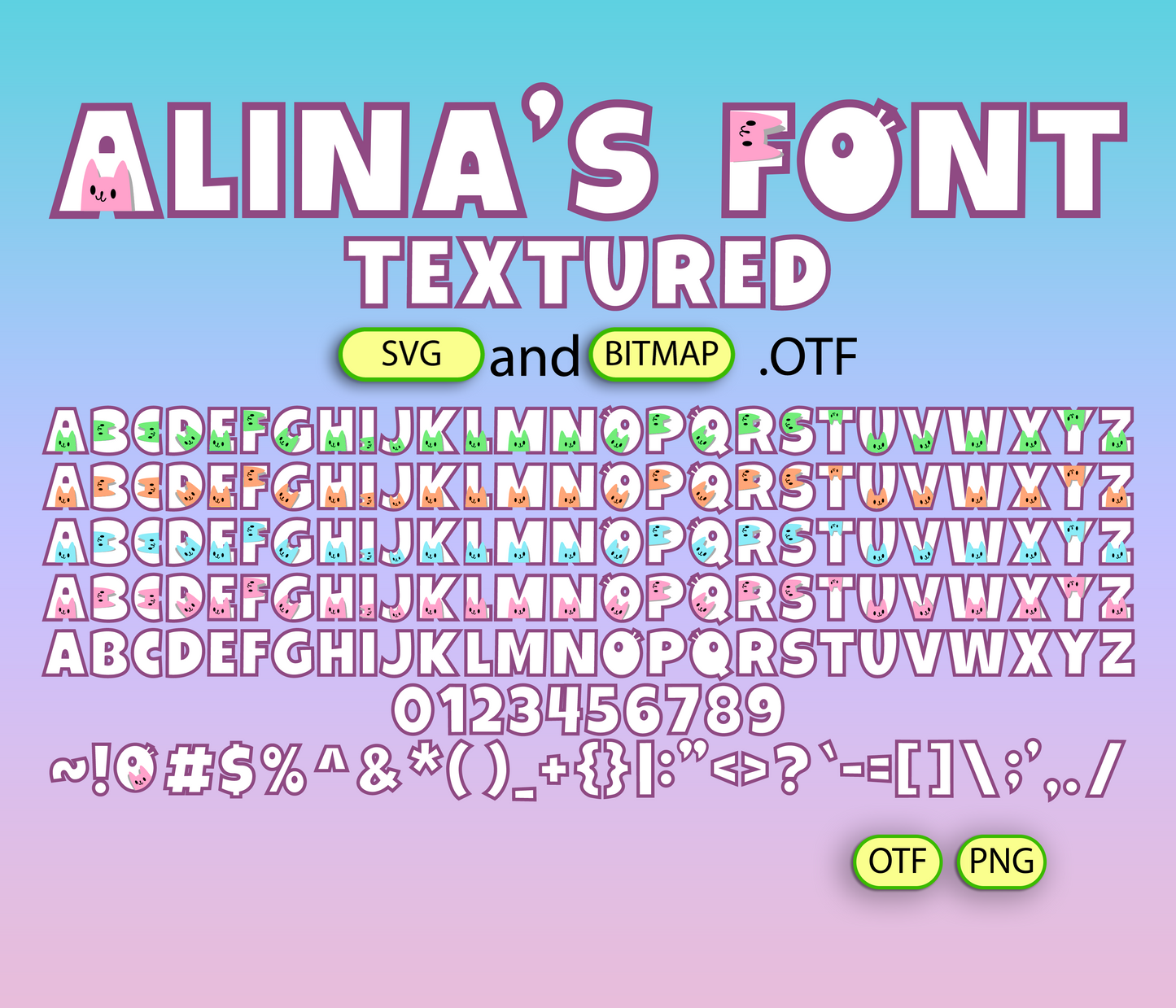
Kitty's Playhouse Font
Kitty's Playhouse Font Colorful Cat Adventure
Step into the whimsical world of feline fun and miniature adventures with our Kitty's Playhouse font, capturing the essence of colorful cat companions and magical dollhouse discoveries. Perfect for children's parties, cat-themed events, toy designers, and creative professionals, this font brings the playful, imaginative energy of kitten adventures and miniature worlds to your projects. Create delightful invitations, playful merchandise, or digital content with the cheerful, adventurous spirit of curious cats exploring tiny magical rooms.
Our Kitty's Playhouse font features rounded, friendly letterforms with playful curves reflecting the cheerful aesthetic of cat adventures and dollhouse exploration. The characters blend childlike wonder with feline charm, creating perfect fusion of playful design and miniature magic.
- Children's Events: Create adorable invites, posters, and banners for cat parties, dollhouse playdates, and kitten-themed birthday gatherings
- Playful Design: Perfect for toy packaging, children's book covers, and cat-themed party accessories that capture miniature adventure magic
- Digital Media: Enhance websites, blogs, and social media with cheerful headers and graphics that express playful curiosity and feline fun
- Entertainment Content: Add authentic character to children's materials, toy designs, and promotional materials for family-friendly cat events
- Personal Projects: Bring kitten playhouse charm to scrapbooking, DIY crafts, and home decor inspired by the aesthetics of miniature cat adventures